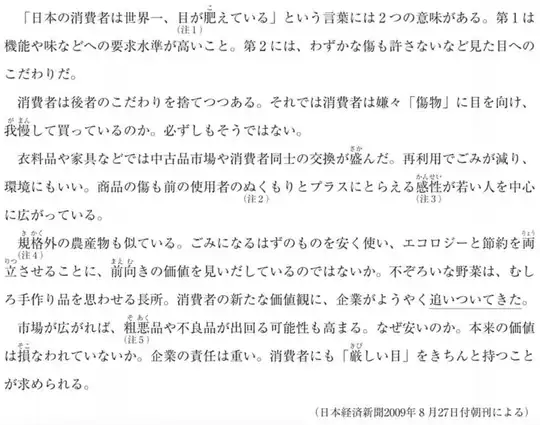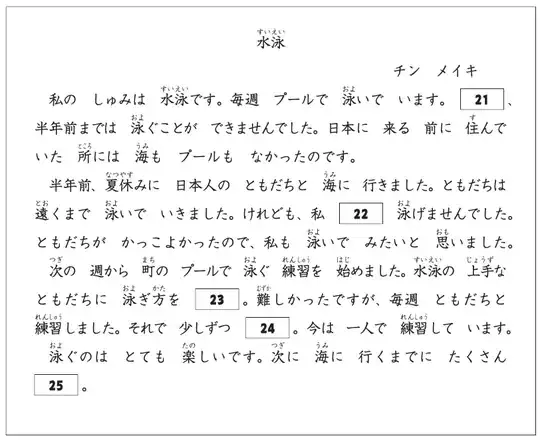
What is the font used in the JLPT?
This is particularly helpful for the 100,000s of students who write the JLPT every year as different fonts can have wide variation, and as kanji font has been shown to affect learning.
Here are two examples:
typical JLPT reading sample 1 typical JLPT reading sample 2
• @arturomp: I don't see any double-standard. Stroke order ≠ font. Different "forms" of kanji also ≠ font (though different fonts may use different forms of a kanji). The basic premise is that discussing things like stroke order and different forms helps learners understand the Japanese language better. Discussing font disfluency as in the link you provided may also have some merit, but knowing which font is used on the test does not really help anyone IMO. (You'll notice I also voted to close the "personal opinion" topic you linked). – istrasci Jan 25 '24 at 00:37
The first image is 教科書体 (Textbook font)
This is a family of fonts that all follows the same style, just like in English Serif is not a specific font but a series of font whose design follow the same principle. 教科書体 is used, as the name says, in textbooks to mimic the ways characters are written by hand to teach kids proper writing(Although there are still variation between print and writing, which I'm not gonna mention here). Any 教科書体 would give you a similar style.
The second image is 明朝体 (Min dynasty font)
I'm not an expert on the history of fonts, I just recognize them.
This 明 is from the Ming dynasty. Curiously, the same style is known in China by the name of another dynasty, Song (宋). – aguijonazo Jan 23 '24 at 17:39